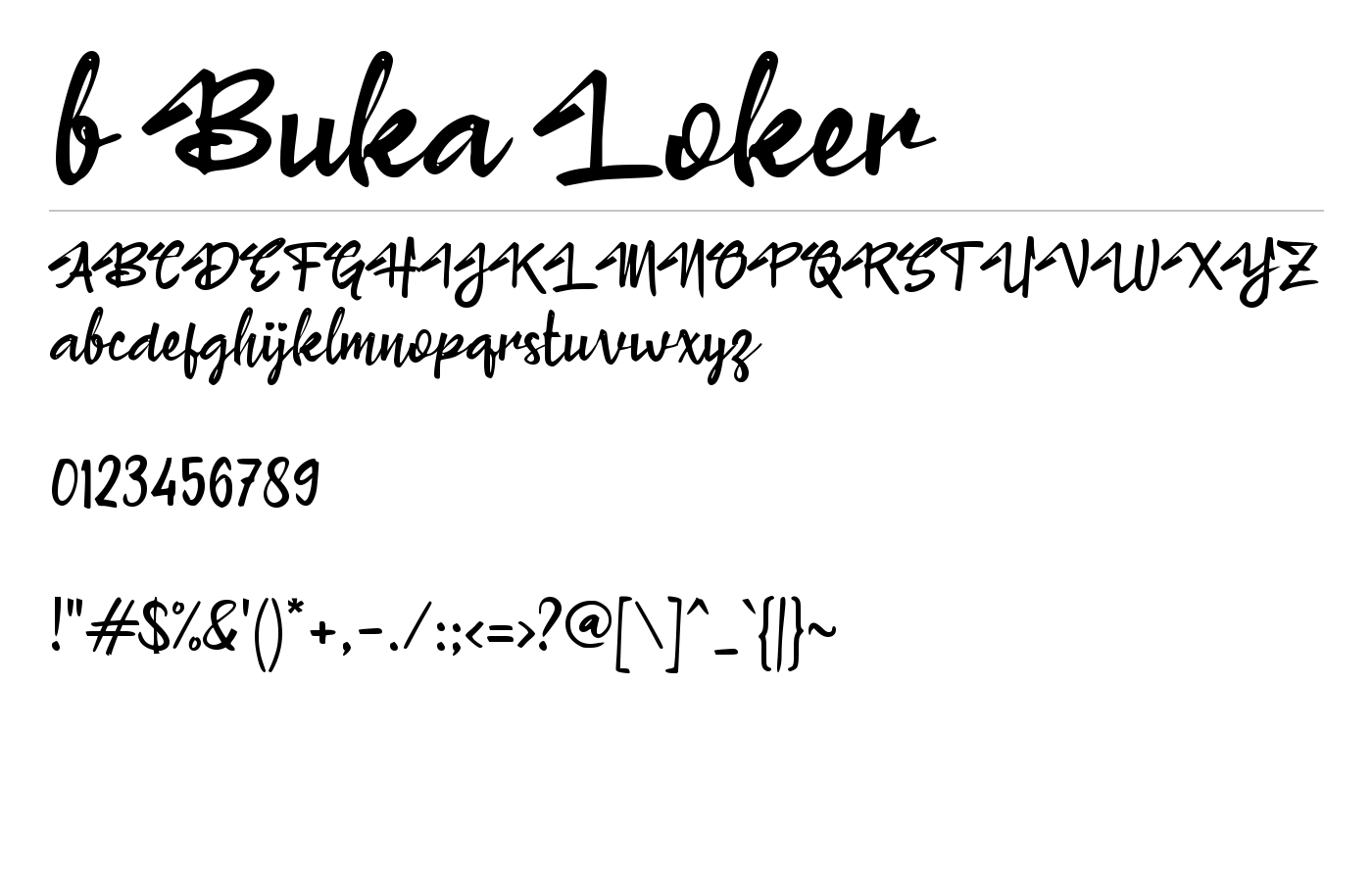
Buka Loker is a lively and energetic script font that features fluid, handwritten strokes with a playful and casual vibe. Its moderately tall x-height and varied stroke widths give it a dynamic, approachable feel, making it ideal for creative branding, invitations, and expressive headlines where a personal touch is desired. This font works well in designs that seek to convey friendliness and uniqueness without sacrificing legibility.
b Buka Loker Font